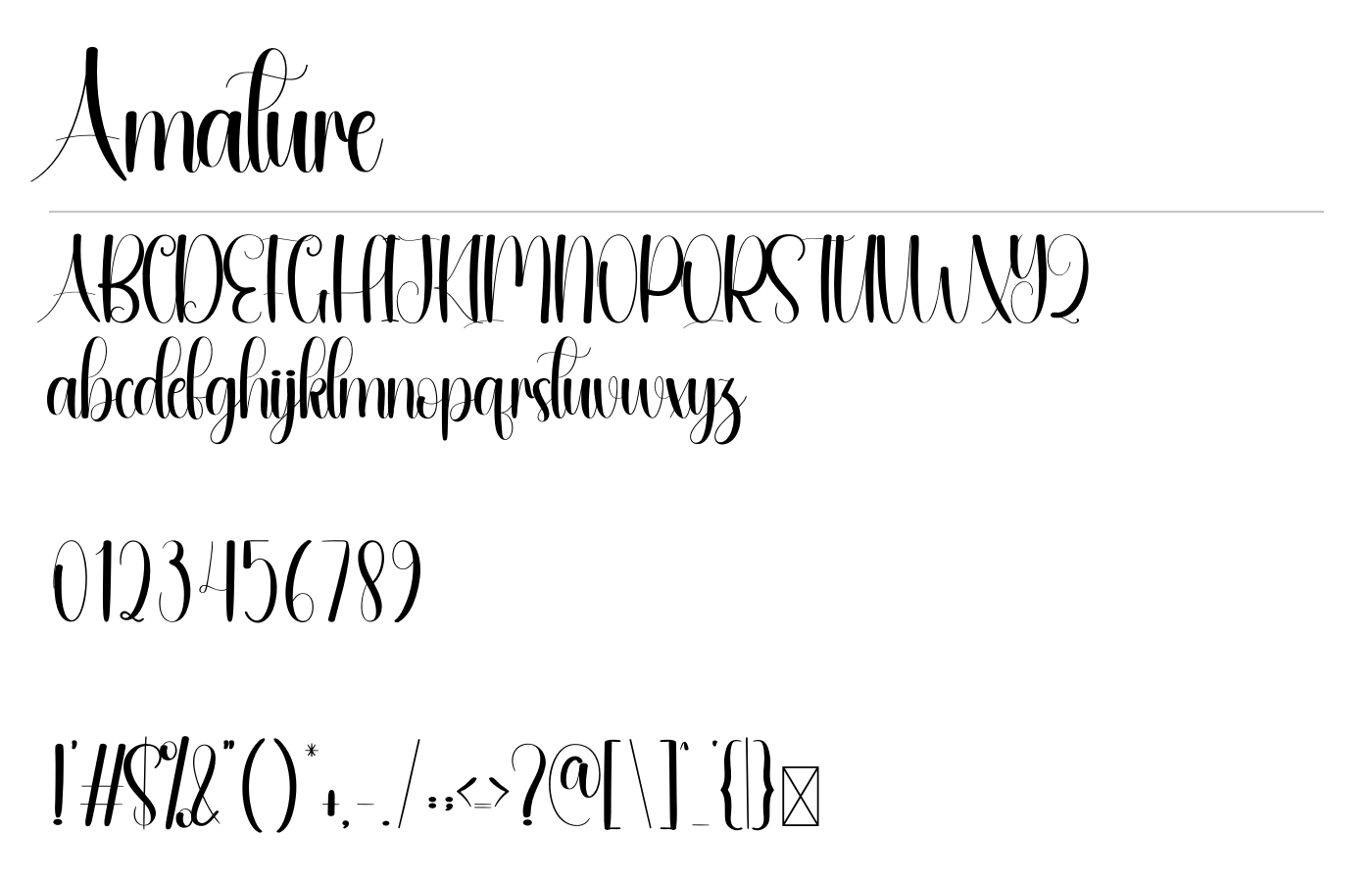
Amature Font is a stylish script typeface that combines elegant, high-contrast strokes with delicate, flowing swashes, giving it a sophisticated yet playful character. Its tall, narrow letterforms and refined curves make it perfect for luxury branding, invitations, and stylish headlines where a graceful, artistic touch is desired. This font shines in designs that need a blend of modern flair and classic elegance, especially in fashion or beauty contexts.
Amature Font
About Amature Font